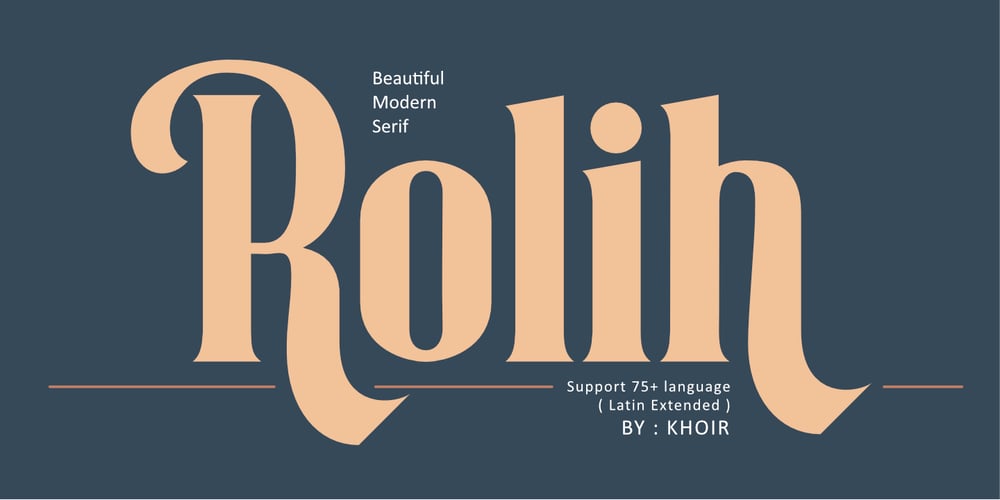
Rolih
Rolih font
Rolih Font Family was designed by Muhammad Romzul Khoir and published by Khoir. Rolih contains 1 styles and family package options. Introducing, Rolih. Serif typeface with a modern and classic look and feel, this font is made with a variety of unique font alternatives so that it is easy to apply, especially in logos, posters, quotes, invitations, labels, greeting / wedding cards, magazines, books, business cards, fashion, packaging and formal forms or other types of advertising.What’s included? Uppercase Characters Lowercase Characters Support 75+ Language FEATURESRolih (OTF)So what are you waiting for? immediately purchase this font, feel free to comment, or send me my PM or email at khoirtypework@gmail.com Thank you for seeing